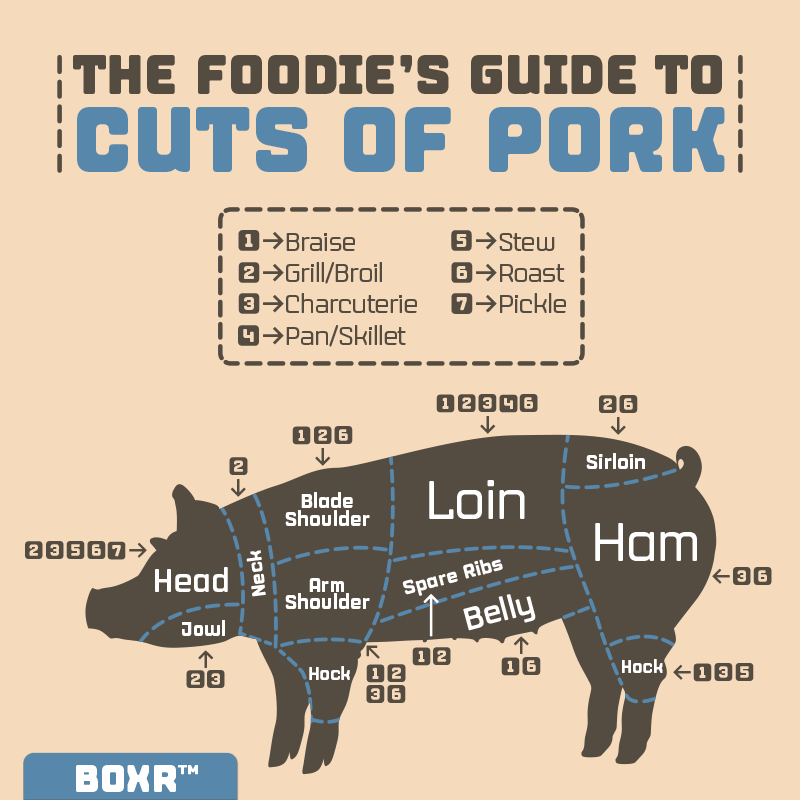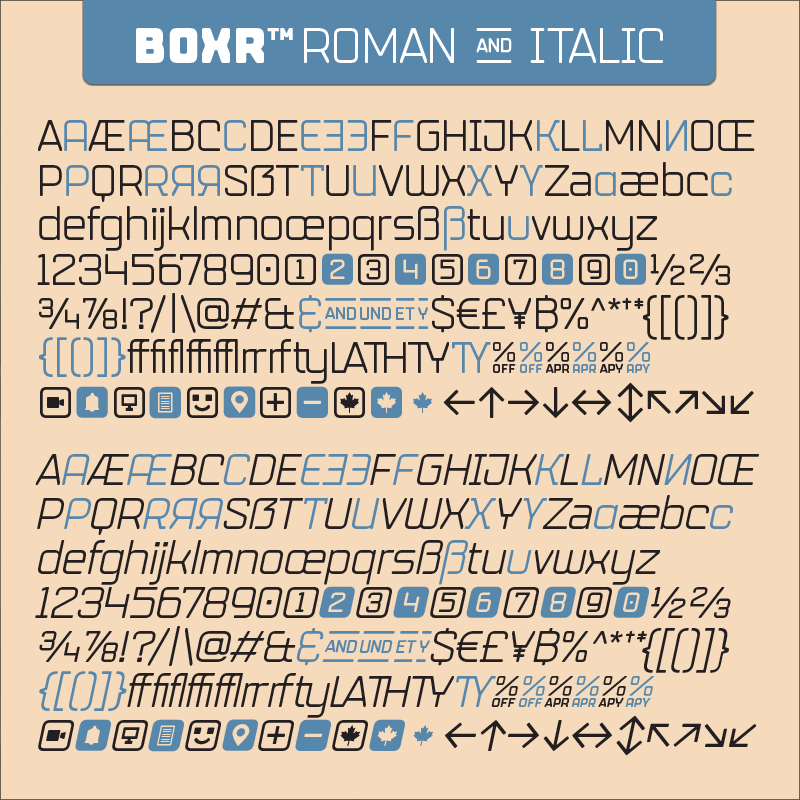
Boxr™ is a contemporary rectangular font family named after its boxy, square shape. We softened all the sharp corners on stems and connections to achieve a harmonious balance between the clean, corporate look and the warm, friendly feel. This versatile rectangular sans serif typeface is an excellent choice for your prints, packaging, editorial, and digital design projects.
Boxr™ comes in 5 weights, 10 styles, and 1,100 glyphs/style. This typeface also packs with OpenType features such as stylistic alternates, case-sensitive punctuations, ligatures, and date vs fraction recognitions. It also supports 200+ Latin-based languages and comes 120 essential UX/UI icons available in three different stylistic options. Try Boxr™ on your new design projects today!
FEATURE HIGHLIGHTS:
Come with over 1,175 glyphs
120 UX/UI icons, each comes in 3 styles (the total of 360 icons)
60+ standard and discretionary ligatures
Case-sensitive marks, punctuations, and math symbols
Support 200+ Latin-based languages. (See Boxr™ glyphs table for details)